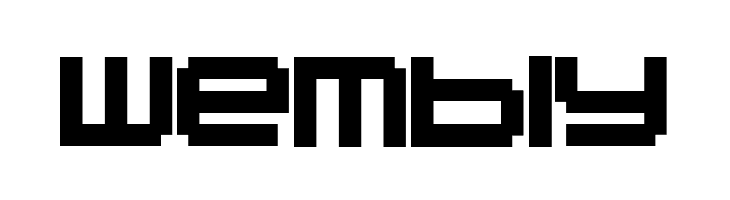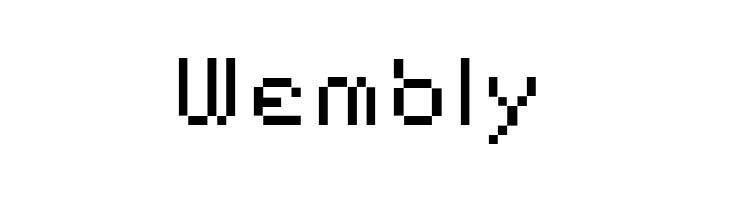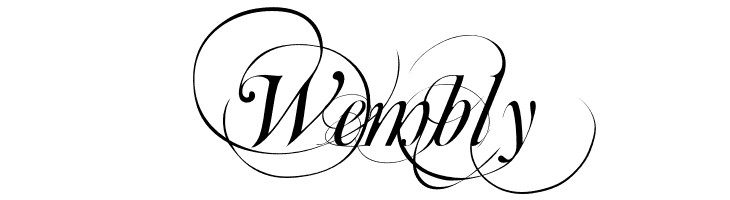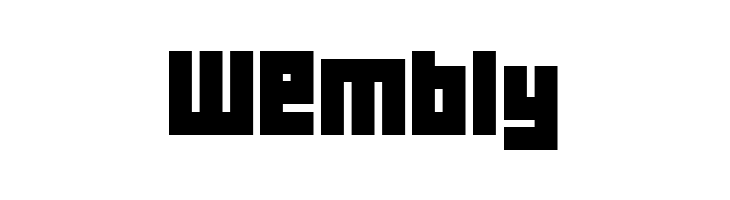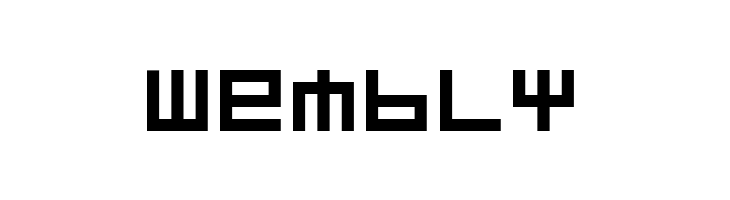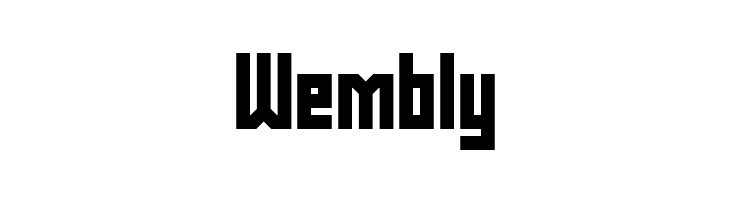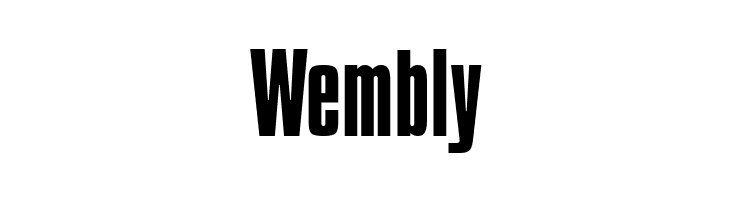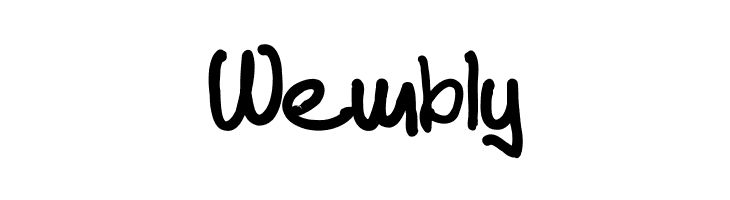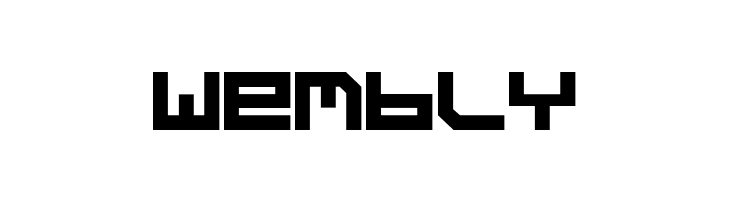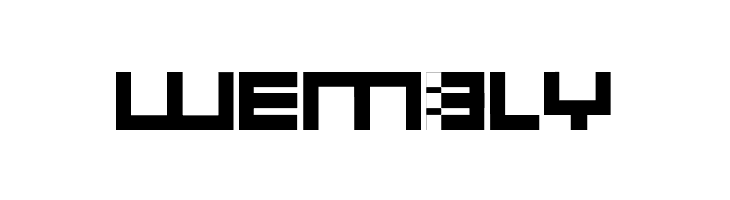
A pixelated, retro-style font with a blocky, digital appearance.
A bold, geometric font with a digital, pixelated style.
A pixelated, grid-like font with a retro digital aesthetic.
A bold, geometric font with a digital, futuristic style.
An ornate script font with elaborate swirls and flourishes.
A bold, pixelated font with a retro, digital aesthetic.
A pixelated, retro-style font with a blocky, geometric appearance.
A bold, geometric font with a digital, pixelated style.
A bold, geometric font with a strong, industrial style.
A bold, narrow font with a strong vertical emphasis, ideal for impactful designs.
A bold, playful font with rounded, hand-drawn letterforms.
A bold, geometric font with a futuristic, digital style.
A bold, geometric font with a digital, pixel-art style.
A lively, cursive handwritten font with fluid, connected strokes.
A decorative font with characters enclosed in flower-like shapes, offering a playful and vibrant style.
A bold, textured font with a neon-inspired, retro aesthetic.